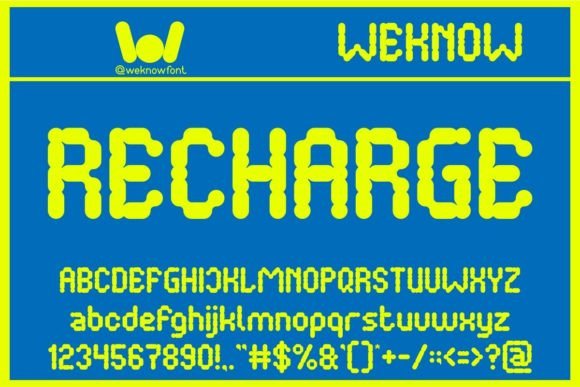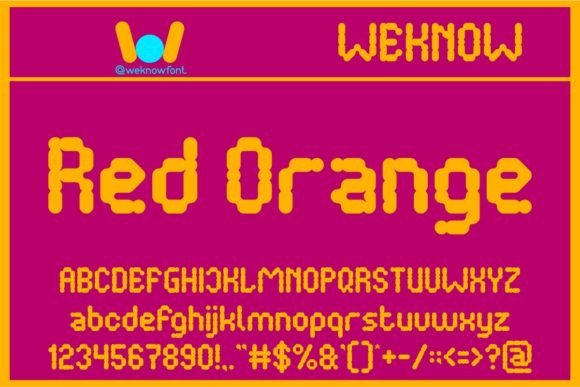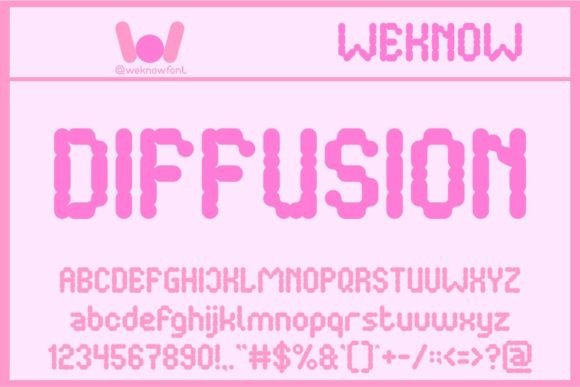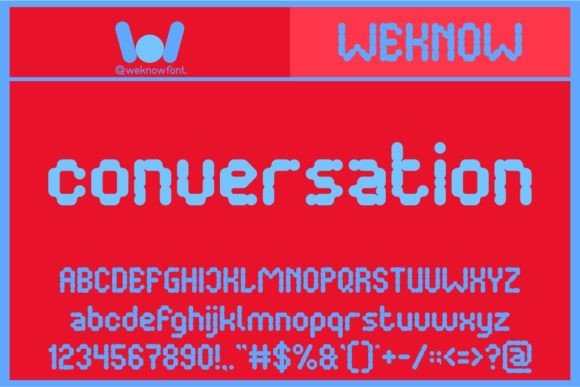
Battery Font: The Ultimate Techno-Style Sci-Fi Display Font
In the world of design, fonts play a crucial role in conveying the message and tone of a project. For designers and crafters looking to add a futuristic and modern touch to their work, the Battery Font is an excellent choice. This techno-style sci-fi display font is perfect for creating unique designs that require a fun, bold accent.
What is Battery Font?
Battery Font is a display font designed to give your text a futuristic and high-tech look. Its unique and bold design makes it perfect for headlines, titles, and short phrases. The font’s techno-style sci-fi aesthetic is inspired by the world of science fiction, making it ideal for projects that require a sense of innovation and forward-thinking.
Key Features of Battery Font
• Unique and Bold Design: Battery Font features a distinctive and eye-catching design that is sure to grab attention.
• Futuristic and Modern Vibe: The font’s futuristic aesthetic makes it perfect for projects that require a sense of innovation and cutting-edge technology.
• Techno-Style Sci-Fi Aesthetic: The font’s sci-fi inspiration makes it ideal for projects that require a sense of adventure and exploration.
• Perfect for Display Text: Battery Font is designed specifically for display text, making it perfect for headlines, titles, and short phrases.
Use Cases for Battery Font
Battery Font is a versatile font that can be used in a variety of projects, including:
• Graphic Design: Use Battery Font to add a futuristic touch to your graphic design projects, such as posters, flyers, and brochures.
• Web Design: Add a bold and modern accent to your website with Battery Font, perfect for headlines and titles.
• Branding and Logo Design: Use Battery Font to create a unique and memorable brand identity that stands out from the crowd.
• Crafting and DIY Projects: Add a touch of futurism to your crafting and DIY projects, such as signs, banners, and decorations.
Tips for Using Battery Font
To get the most out of Battery Font, here are some tips to keep in mind:
• Use it Sparingly: Battery Font is a bold font, so use it sparingly to avoid overwhelming your design.
• Pair it with a Simple Font: Pair Battery Font with a simple font to create contrast and visual interest.
• Experiment with Colors: Experiment with different colors to find the perfect combination that complements your design.
Battery Font is a unique and versatile font that is perfect for designers and crafters looking to add a futuristic and modern touch to their projects. With its bold and eye-catching design, techno-style sci-fi aesthetic, and versatility, Battery Font is an excellent choice for a wide range of projects. Whether you’re working on a graphic design project, web design project, or crafting and DIY project, Battery Font is sure to make a statement.